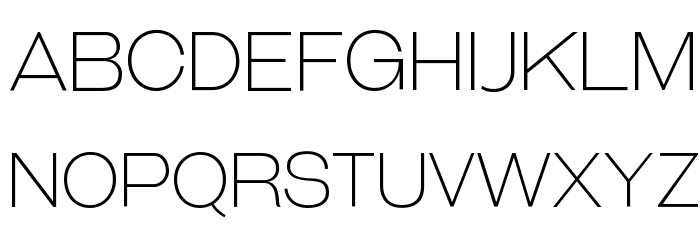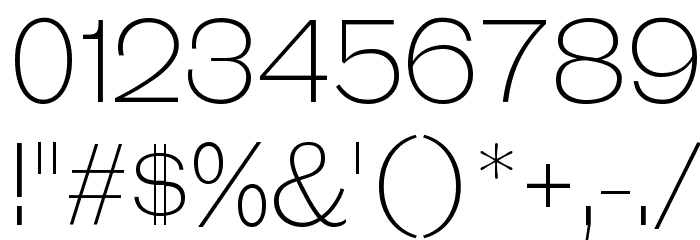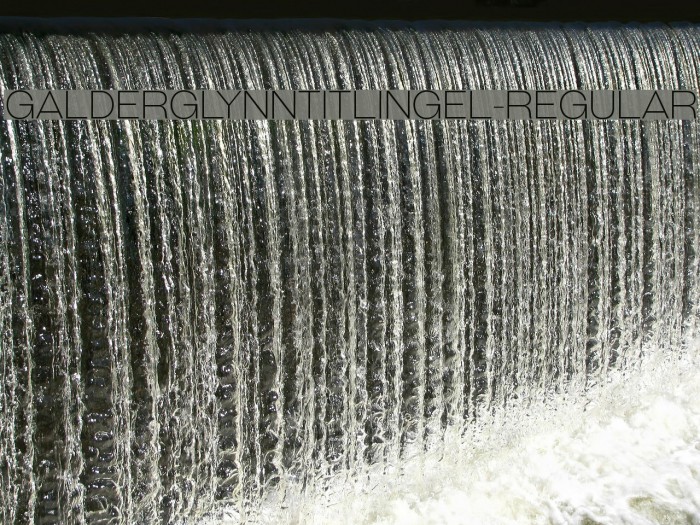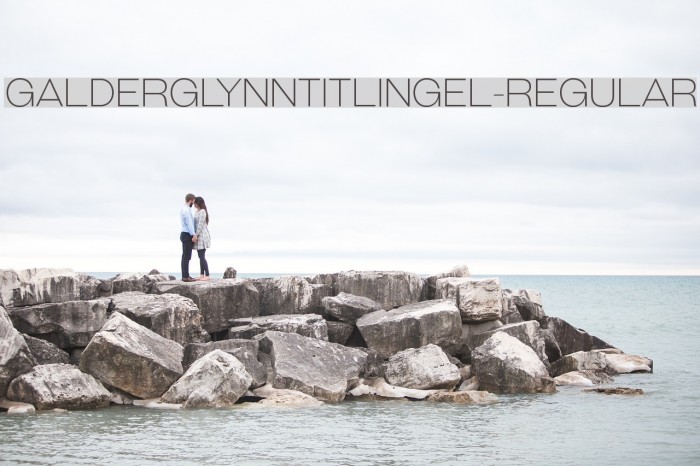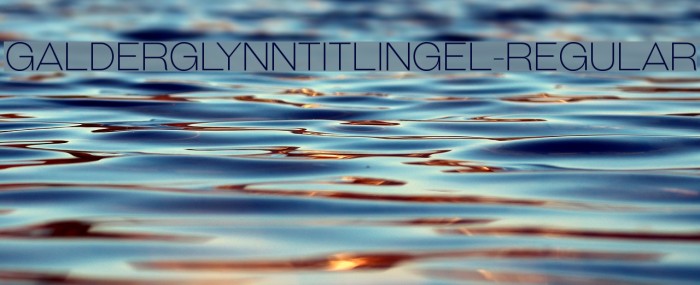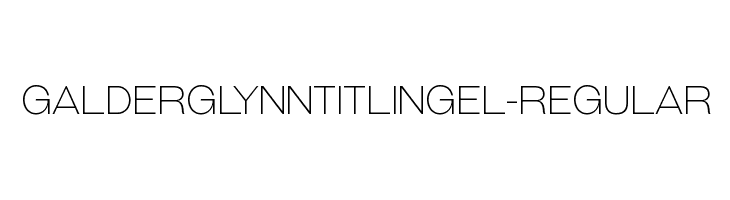
GalderglynnTitlingEl-Regular Font
This font features a clean and modern sans-serif style with a geometric structure. The characters are uniformly thin, giving it an elegant and minimalist appearance. The uppercase and lowercase letters maintain a consistent height, contributing to a harmonious and balanced look. The numerals are clear and legible, matching the overall aesthetic of the alphabet. Special characters are included, designed with the same attention to detail and simplicity. This font is versatile, suitable for a variety of design applications where clarity and modernity are desired.
A clean, modern sans-serif font with a geometric and minimalist design.
- Proposed Projects: Ideal for branding, editorial design, web design, and corporate materials.